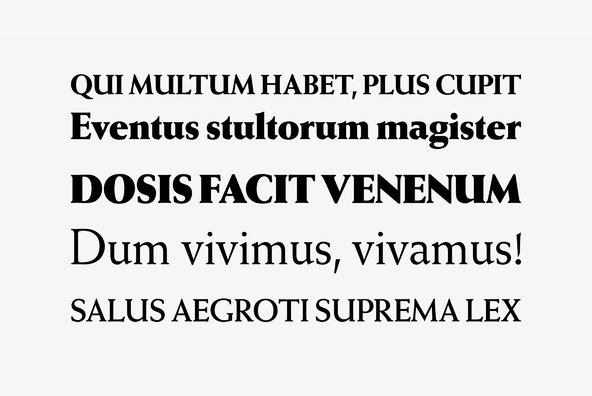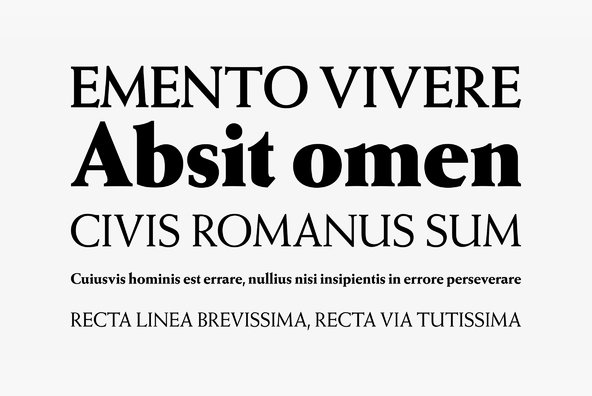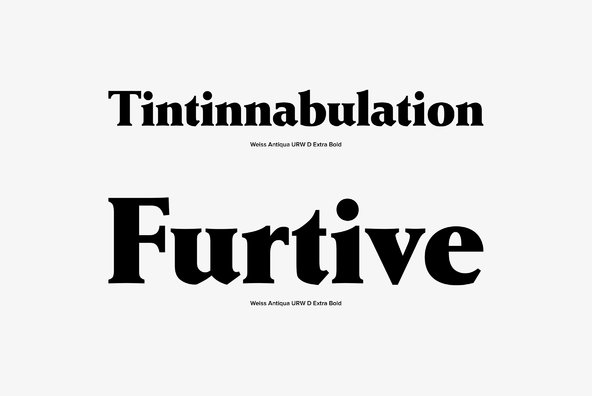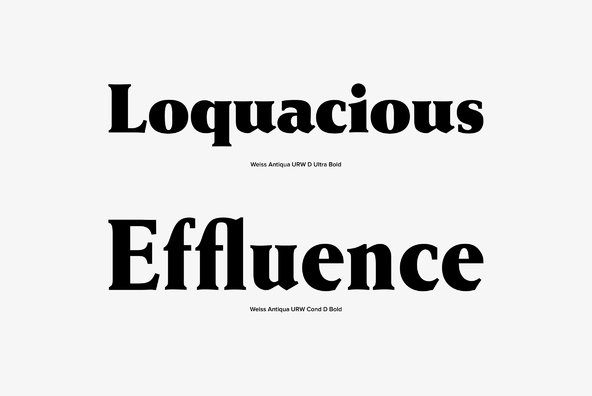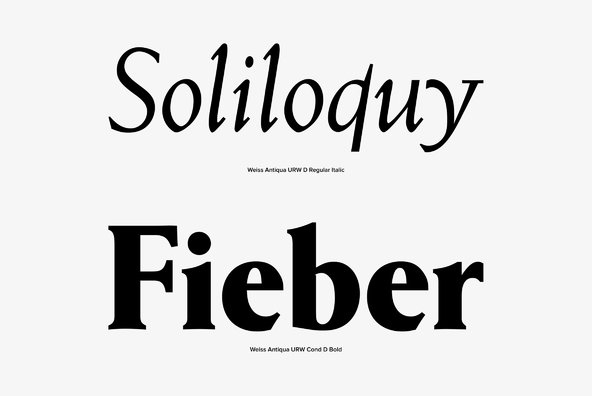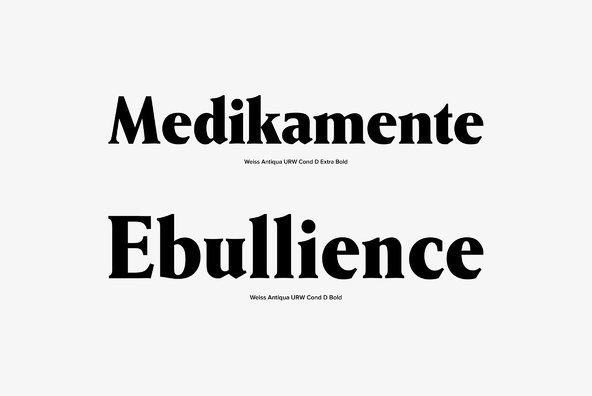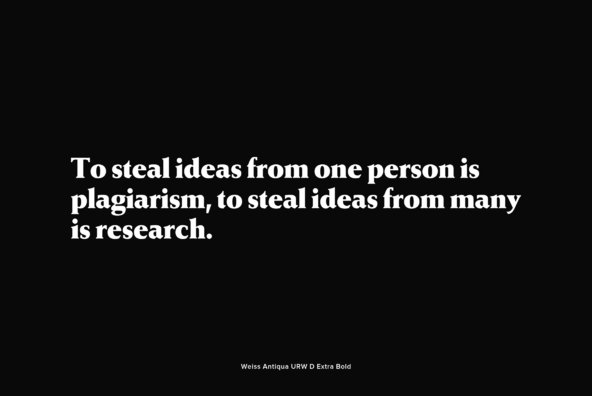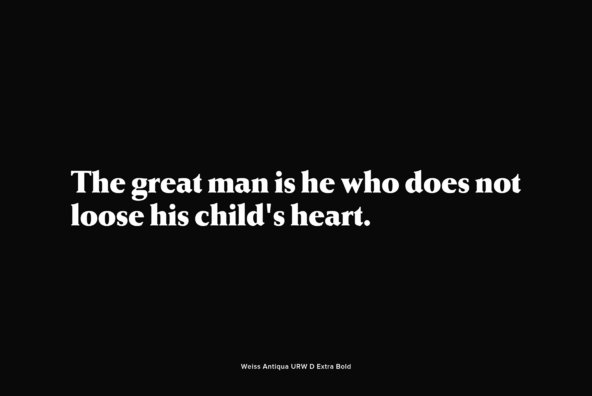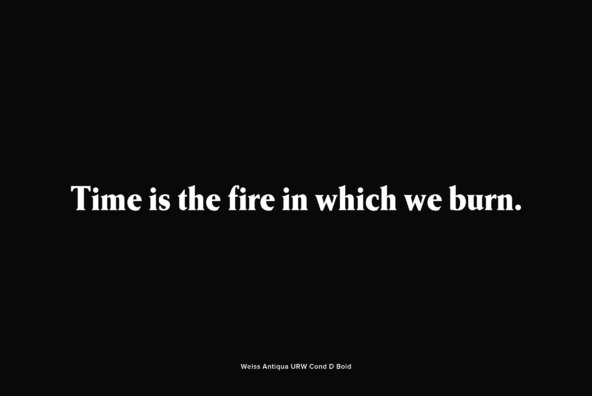
Weiss Antiqua
In 1928 Emil Rudolf Weiss designed Weiss Antiqua, a classic and and versatile serif design. Use this design in a wide range of projects, great for the design toolbox.